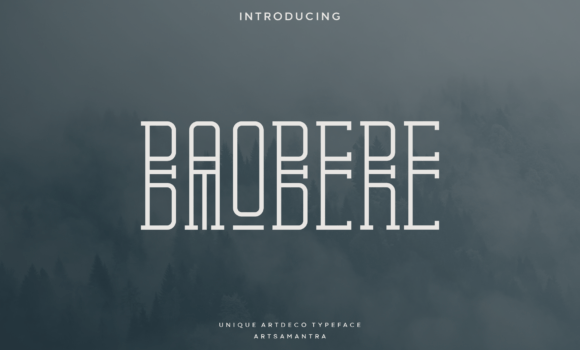
baobere
Baobere Font – Free Download Introduction to Baobere Font Baobere is a decorative font inspired by native and nordic tribes, its minimalist and feminine shape makes it look elegant. 📸 Preview Gallery 3 images 📌 Product Name Baobere Font 👤